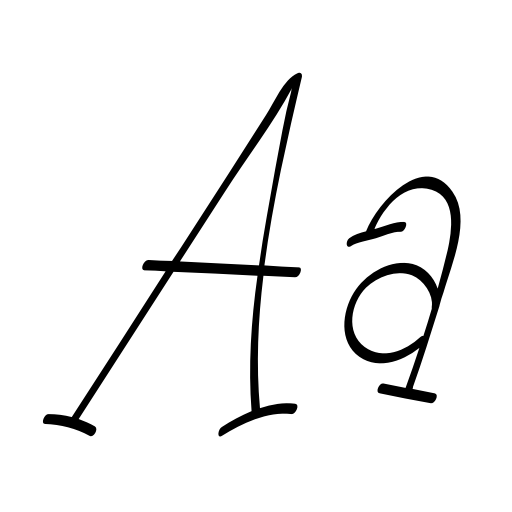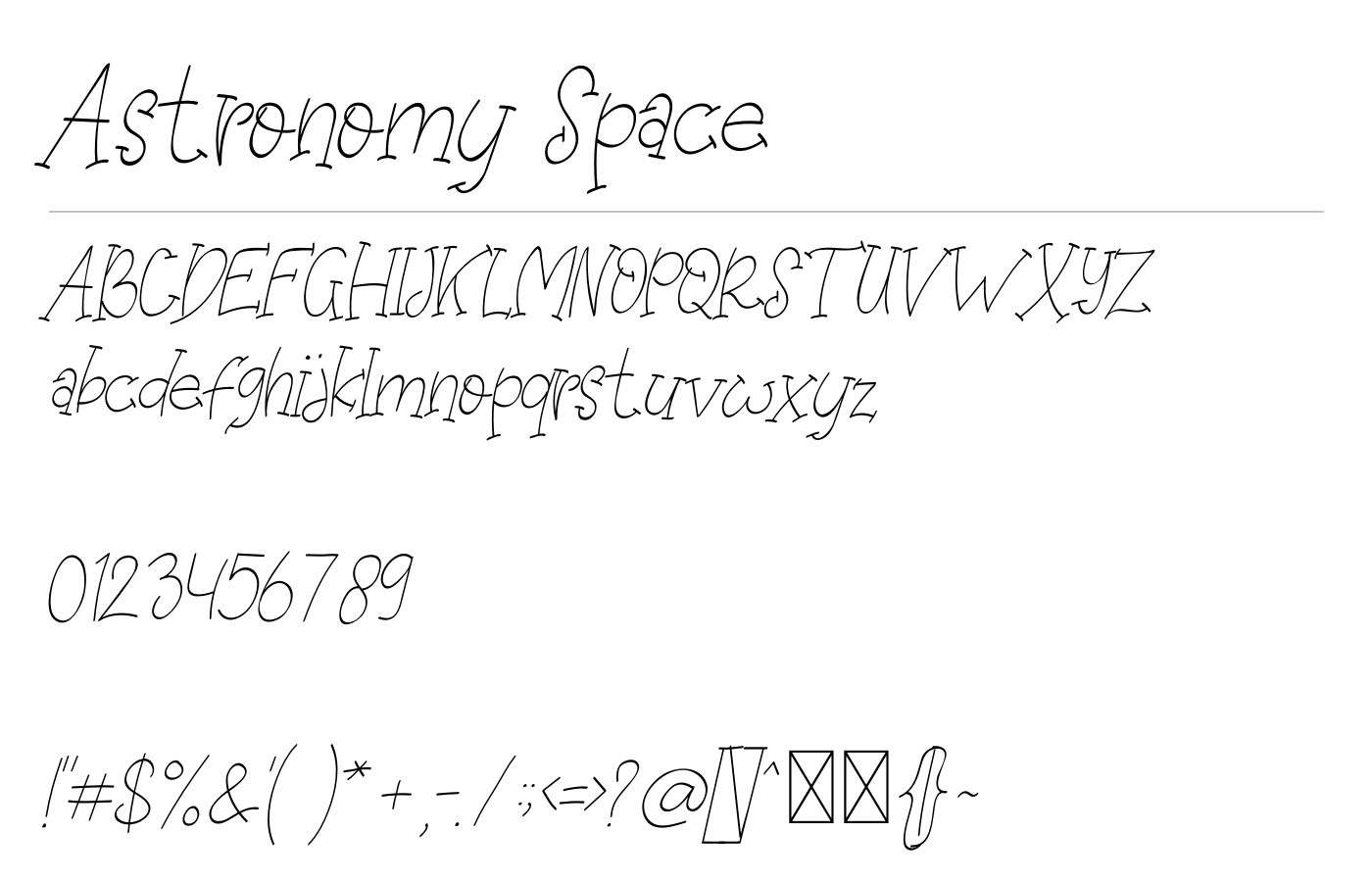
Astronomy Space Font is a delicate, hand-drawn script-style typeface with a whimsical, slightly tilted design that evokes a playful yet mysterious cosmic vibe. Its thin, airy strokes and unique letterforms make it perfect for creative projects that seek to blend a sense of elegance with an otherworldly, imaginative feel. Ideal for logos, posters, or invitations, this font adds a light, artistic touch best suited for space-themed or fantasy-inspired designs.
Astronomy Space Font
About Astronomy Space Font